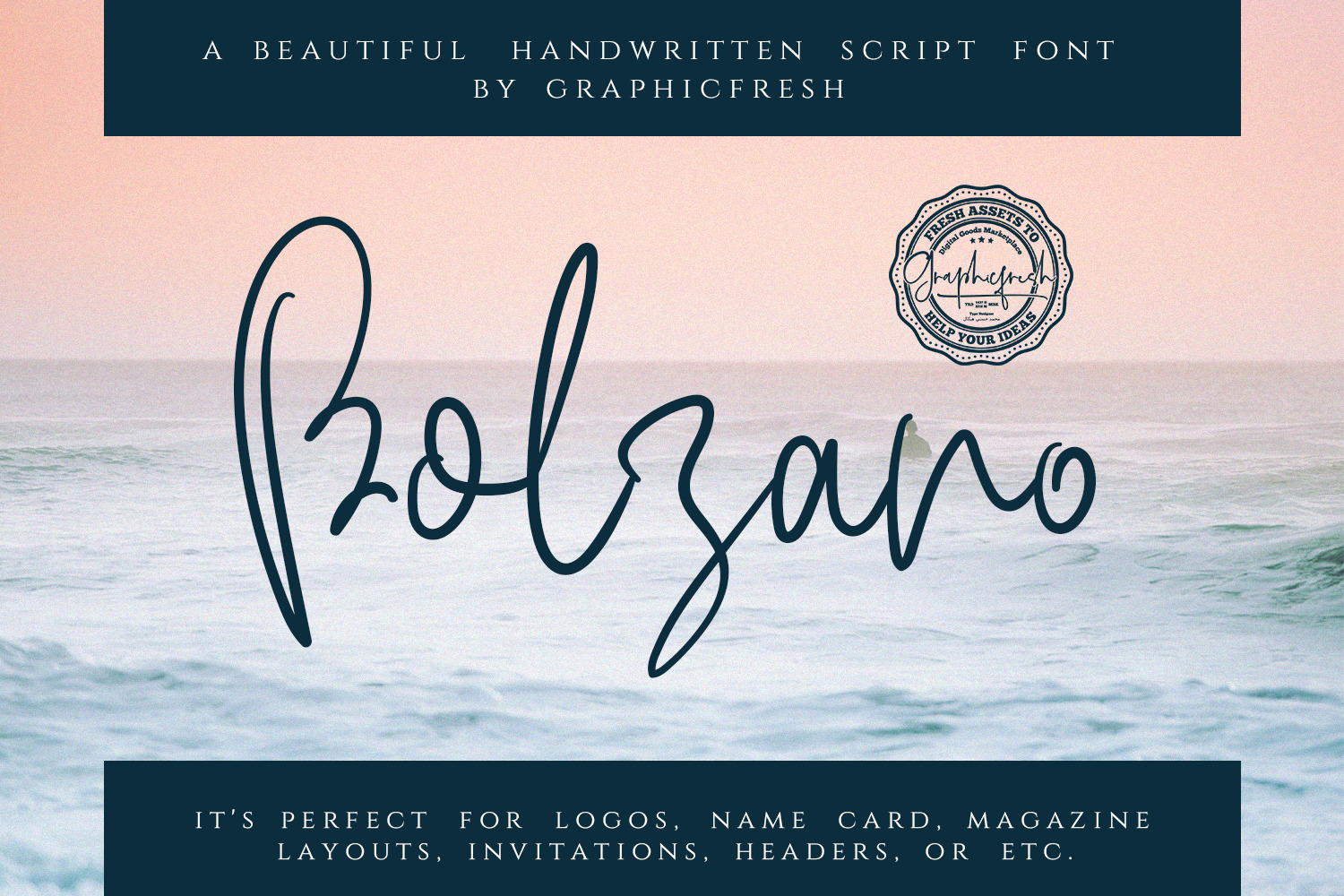
Bolzano - A Beautiful Script Font
Introducing Bolzano - A Beautiful Script Font. It comes with an elegant and feminine style which is perfect to make any design stand out! This font is perfect for branding, wedding invites, magazines, mugs, business cards, quotes, posters, and more.
Bolzano Type Features:
- Suitable for Headlines, Logotypes, Signs, Posters, Letterhead, T-Shirt and many more.